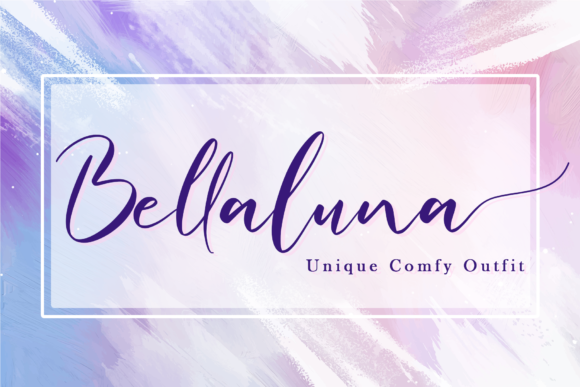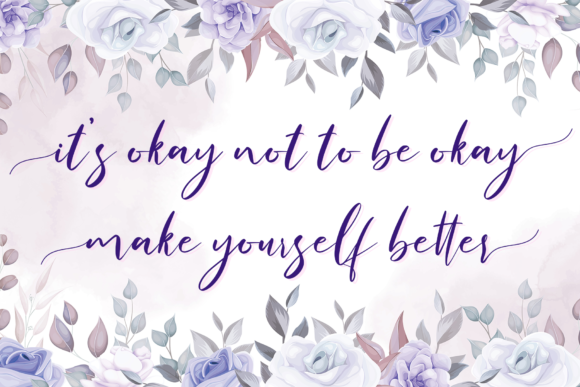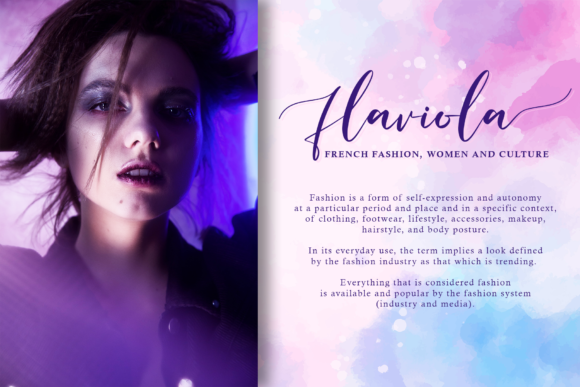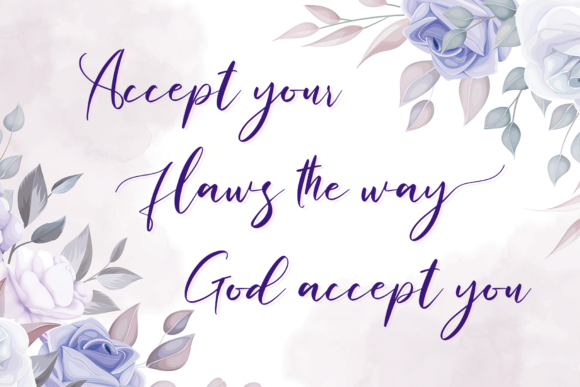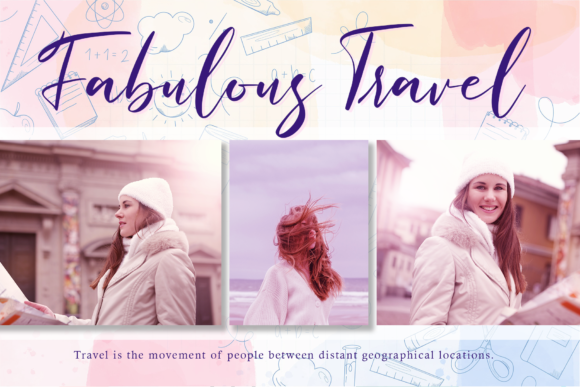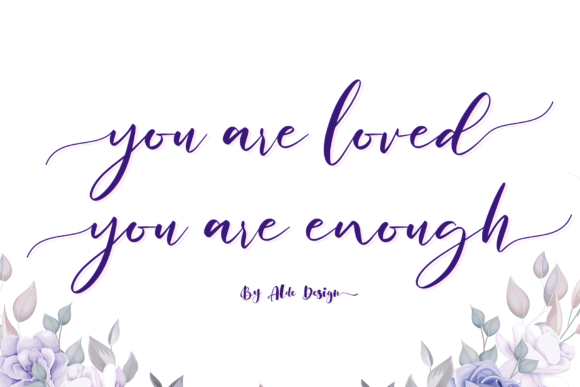
Introducing Falviola Font: The Enchanting Handwritten Script to Elevate Your Designs
Are you on the hunt for a font that can add a touch of romance and elegance to your designs? Look no further than Falviola Font, a beautiful handwritten script that’s perfect for a wide range of projects. From greeting cards to headlines, and even social media graphics, Falviola is a versatile font that can help you create stunning visuals with ease.
The Charm of Falviola Font
Falviola Font is an enchanting handwritten font that boasts a unique and captivating charm. Its elegant strokes and flowing lines are sure to add a romantic feel to any project, making it perfect for designers and crafters who want to create something truly special. Whether you’re working on a wedding invitation, a branding project, or simply a social media graphic, Falviola Font is sure to impress.
One of the standout features of Falviola Font is its PUA (Private Use Area) encoding. This means that you can access all of the beautiful glyphs and swashes with ease, giving you even more creative freedom to experiment with different styles and effects. With PUA encoding, you can easily insert alternate characters, ligatures, and swashes into your text, allowing you to create truly unique and eye-catching designs.
Applications of Falviola Font
Falviola Font is an incredibly versatile script font that can be used for a wide range of applications, including:
• Greeting cards: Add a touch of elegance and romance to your greeting cards with Falviola Font.
• Headlines: Use Falviola Font to create stunning headlines for your blog posts, articles, or social media graphics.
• Branding: Falviola Font is perfect for branding projects, such as logos, business cards, and letterheads.
• Social media graphics: Elevate your social media graphics with Falviola Font, and make your posts stand out from the crowd.
• Wedding invitations: Falviola Font is a popular choice for wedding invitations, and is sure to add a touch of romance and elegance to your big day.
Why Choose Falviola Font?
So why choose Falviola Font over other script fonts on the market? Here are just a few reasons:
• Unique and captivating design: Falviola Font boasts a unique and captivating design that’s sure to impress.
• PUA encoding: With PUA encoding, you can access all of the beautiful glyphs and swashes with ease.
• Versatility: Falviola Font is perfect for a wide range of applications, from greeting cards to headlines.
• Elegance and romance: Falviola Font is guaranteed to add a touch of elegance and romance to your designs.
Tips for Using Falviola Font
Here are a few tips for using Falviola Font in your designs:
• Experiment with different sizes and styles: Falviola Font looks great in a variety of sizes and styles, so don’t be afraid to experiment.
• Pair with other fonts: Falviola Font pairs well with other fonts, so try pairing it with a sans-serif font for a contrasting look.
• Use swashes and glyphs: Take advantage of Falviola Font’s PUA encoding and use swashes and glyphs to add extra flair to your designs.
• Keep it simple: Falviola Font is a elegant and romantic font, so keep your design simple and understated to let the font shine.